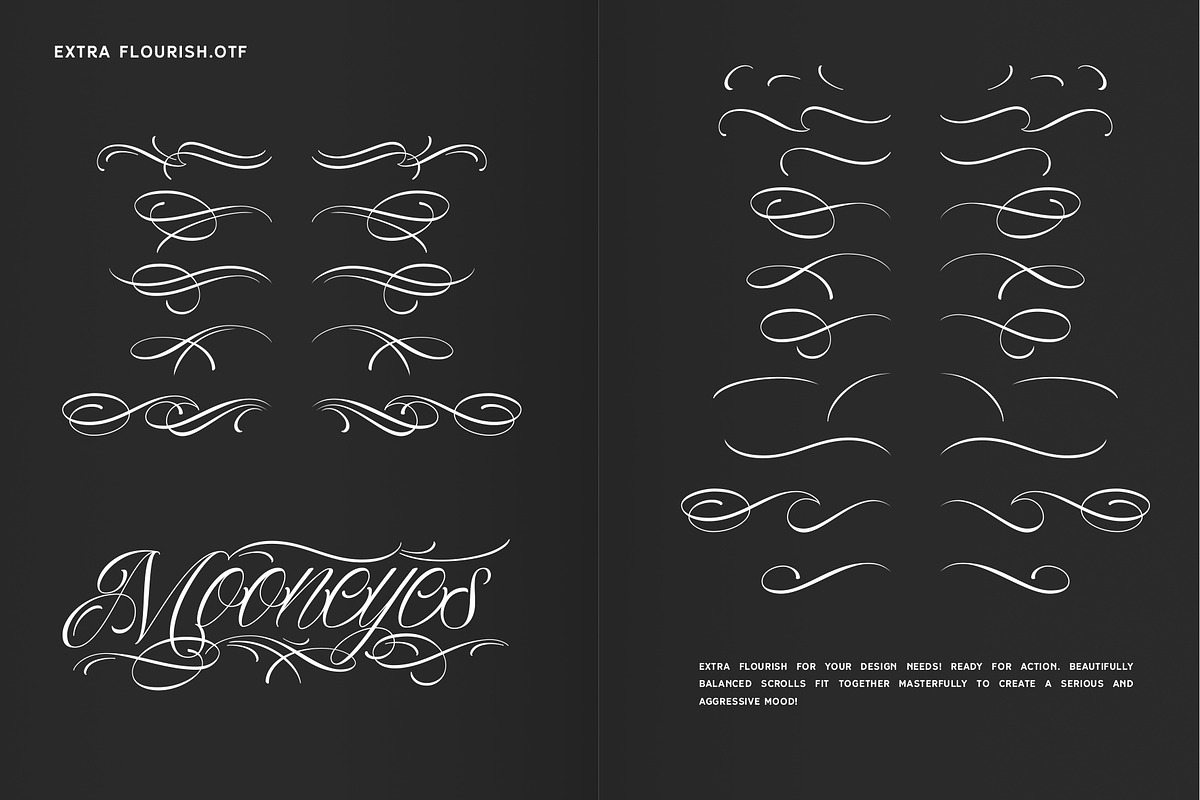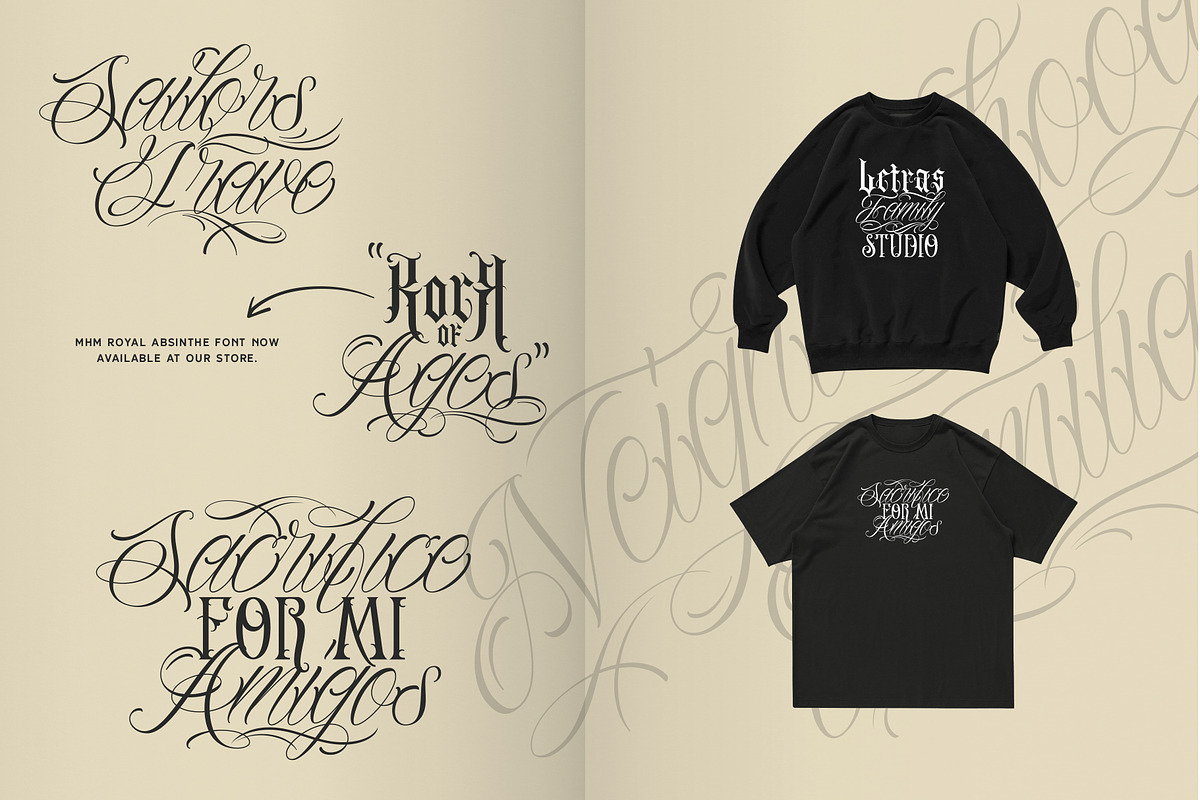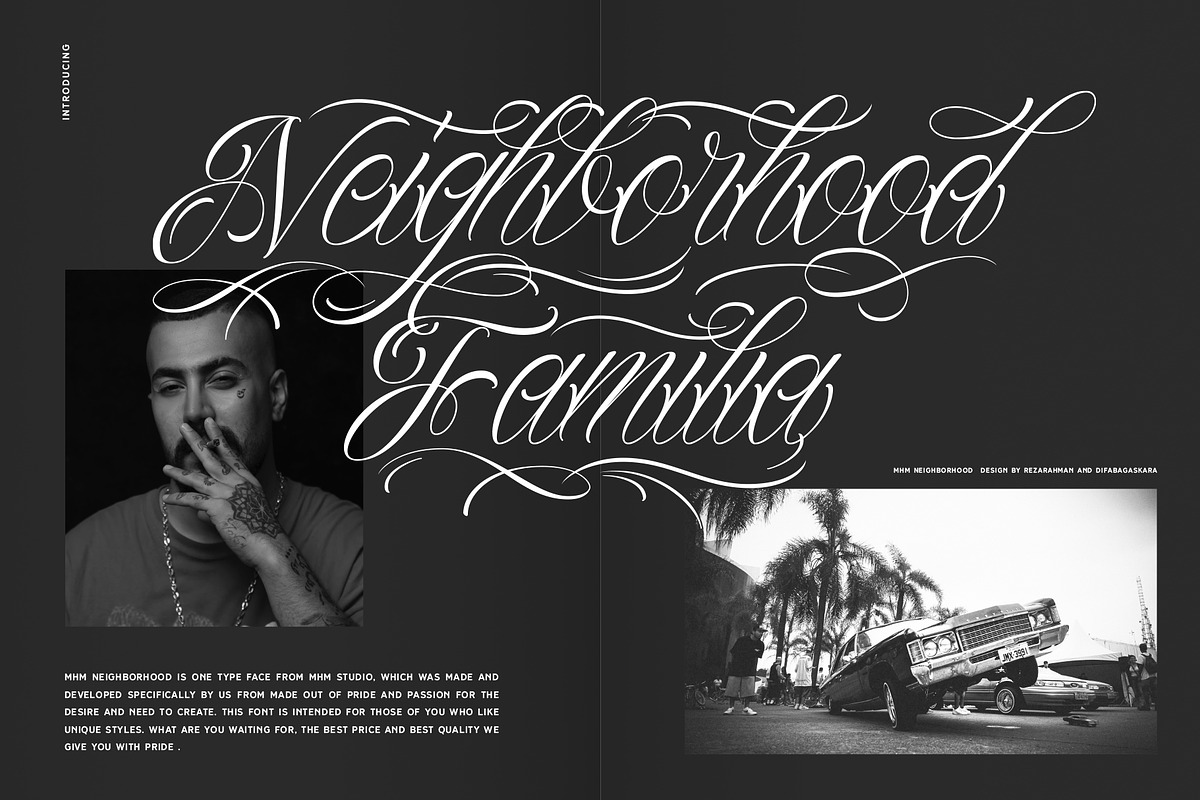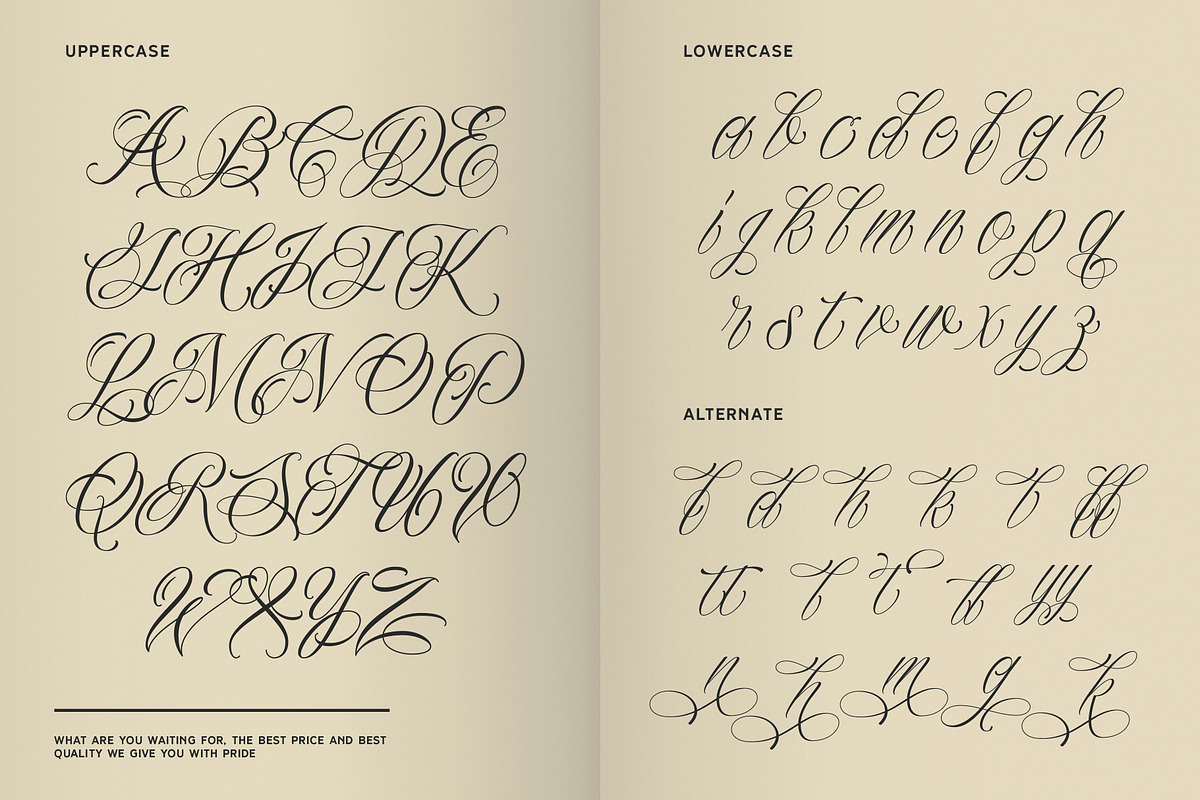
MHM Neighborhood
MHM Neighborhood is one typeface from MHM studio, which was made and developed specifically by us from made out of pride and passion for the desire and need to create. This font is intended for those of you who like unique styles. What are you waiting for, the best price and best quality we give you with pride.
Extra flourish for your design needs! ready for action. Beautifully balanced scrolls fit together masterfully to create a serious and aggressive mood!